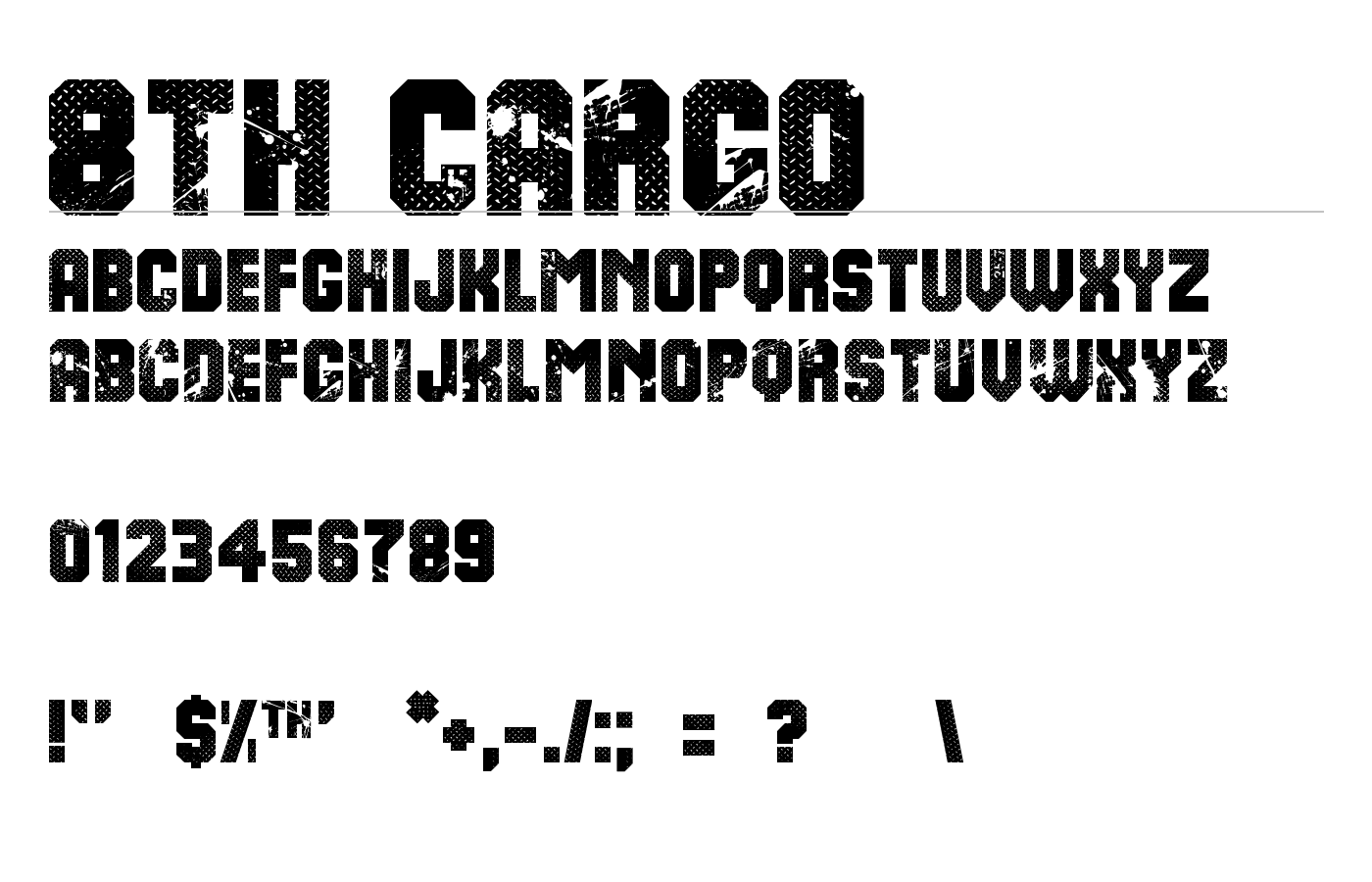
8th Cargo Font is a bold, condensed sans serif with a rugged, industrial feel created by its textured, distressed pattern. Its strong geometric shapes and uniform, all-uppercase style make it perfect for projects seeking a tough, utilitarian look, such as packaging, sports branding, or posters. This font stands out with commanding presence and a gritty, worn personality that adds edgy character to headlines and display use.
8th Cargo Font
About 8th Cargo Font